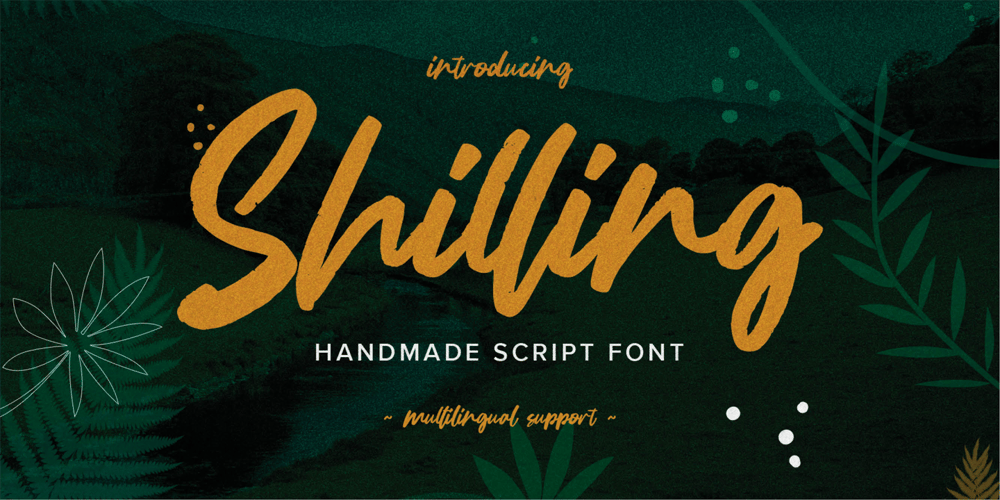
Shilling
Shilling font
Shilling Font Family was designed by Abdul Malik Wisnu, Anang Fibriyanto and published by Gassstype. Shilling contains 1 styles and family package options. Hello Everyone, introduce our new product Font Shilling – Handmade Script Font with a natural handwritten feel. This handmade font will make your design has a beautiful natural touch for each details. It is perfect for any design project as Invitation,logo, book cover, craft or any design purposes.photos, photography overlays, signs, window art, scrapbooking, tags and so much more!That is has charming, authentic and relaxed characteristic more natural look to your text You can activate 6Ligatures glyphs OpenType panel.